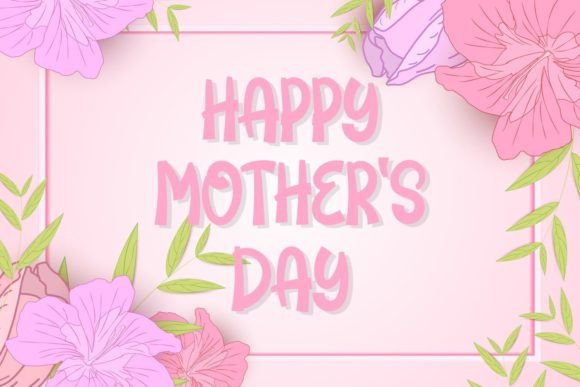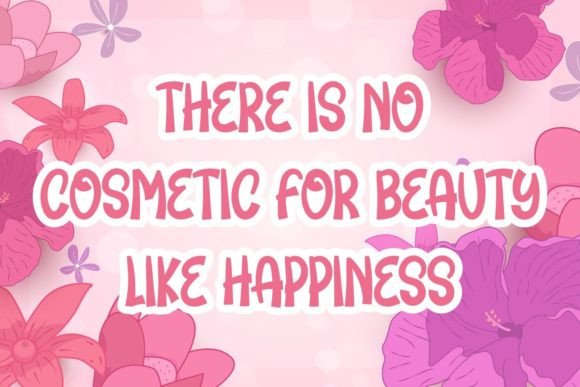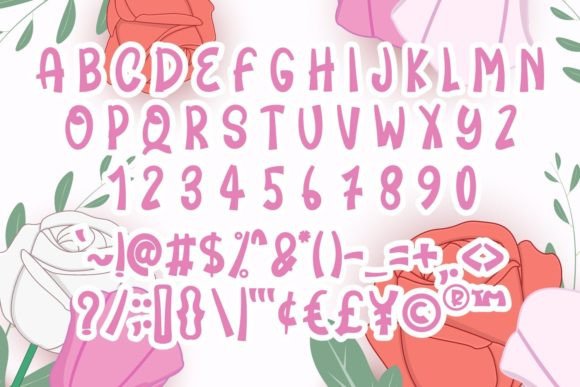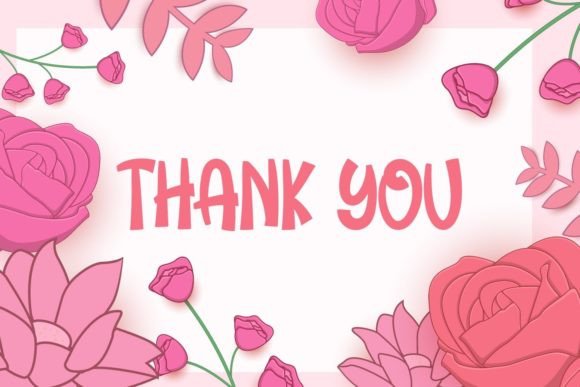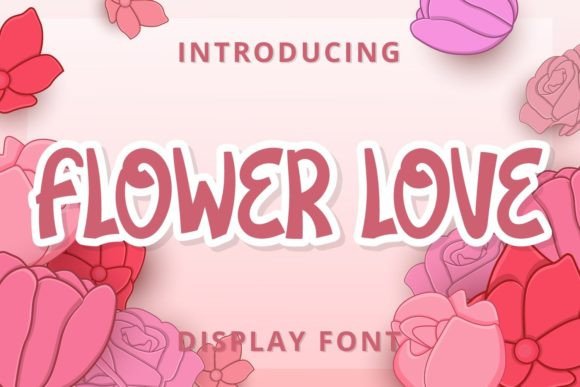
Introducing Flower Love Font: The Ultimate Display Font for Designers and Crafters
Are you tired of using the same old fonts for your designs and crafts? Look no further! Flower Love Font is here to revolutionize the way you approach typography. This cute, friendly, and fun display font is perfect for a wide range of projects, from digital designs to handmade crafts, and everything in between.
What Makes Flower Love Font So Special?
Flower Love Font is more than just a pretty face. Its unique charm and character make it an ideal choice for designers and crafters who want to add a personal touch to their work. Here are just a few reasons why Flower Love Font is about to become your new favorite:
- Cute and Friendly: Flower Love Font has a playful, approachable vibe that’s perfect for creating greeting cards, invitations, and other social materials.
- Fun and Versatile: With its whimsical design, Flower Love Font can be used for a wide range of projects, from digital designs to craft projects, presentations, and more.
- Easy to Read: Despite its decorative nature, Flower Love Font is surprisingly easy to read, making it perfect for use in titles, headings, and other display text.
Whether you’re a professional designer or a crafty hobbyist, Flower Love Font is the perfect addition to your toolkit. Here are just a few ways you can use this amazing font:
- Digital Design: Use Flower Love Font to add a personal touch to your social media graphics, blog posts, and website designs.
- Crafting: Add a touch of elegance and whimsy to your handmade crafts, such as cards, scrapbook pages, and DIY projects.
- Presentations: Make your presentations stand out with Flower Love Font’s unique and eye-catching design.
- Greeting Cards: Create beautiful, one-of-a-kind greeting cards for special occasions like birthdays, weddings, and holidays.
Tips for Using Flower Love Font
To get the most out of Flower Love Font, here are a few tips to keep in mind:
- Use it as a Display Font: Flower Love Font is designed to be used as a display font, so use it sparingly to add emphasis and visual interest to your designs.
- Experiment with Colors: Flower Love Font looks great in a variety of colors, so don’t be afraid to experiment and find the perfect hue for your project.
- Pair it with Other Fonts: For added visual interest, try pairing Flower Love Font with other fonts to create a unique and eye-catching combination.
| Font Name | Flower Love Font |
Key Features of Flower Love Font
- Font Type: Display Font
- Font Style: Cute, Friendly, Fun
- Use Cases: Digital design, crafting, presentations, greeting cards, and more
- Language: English and other languages that support Latin script